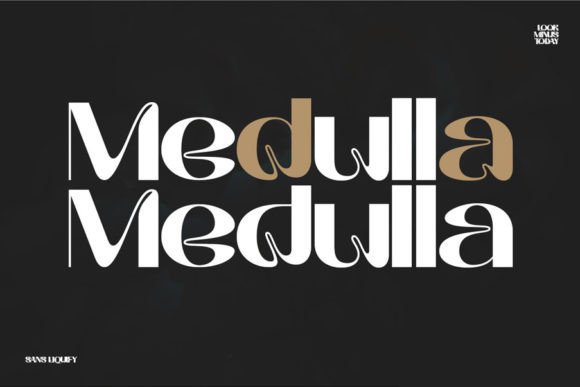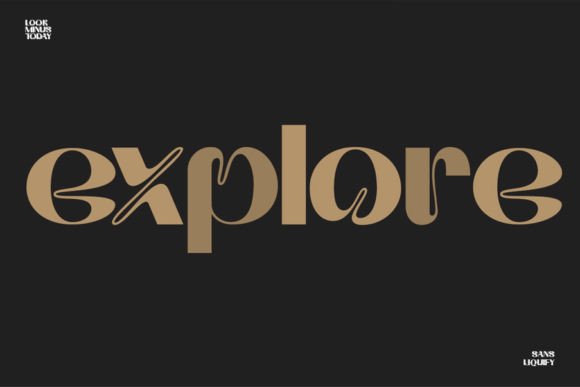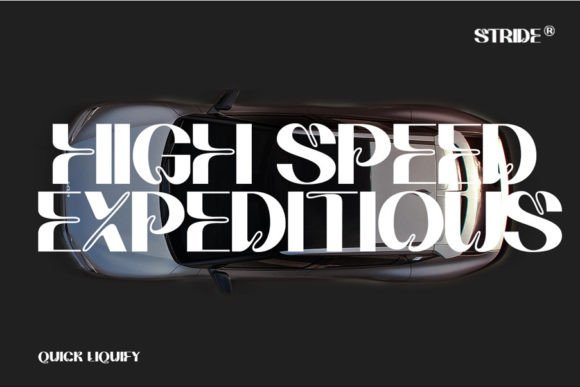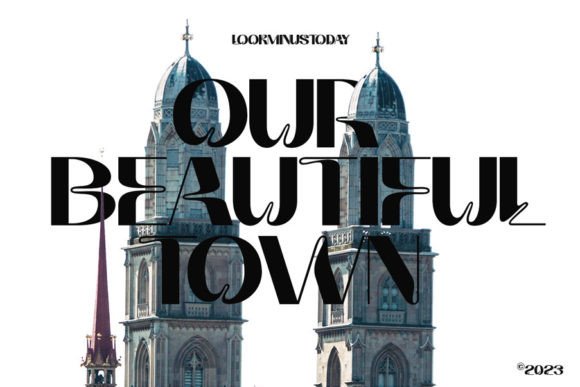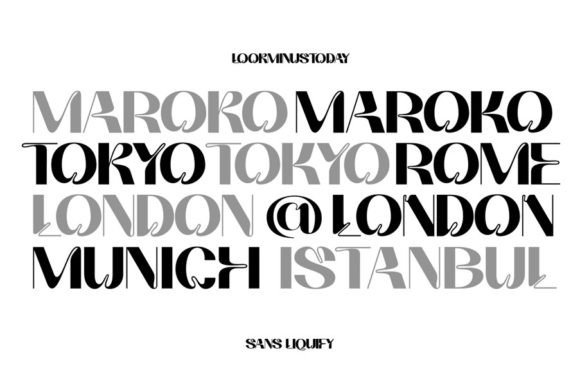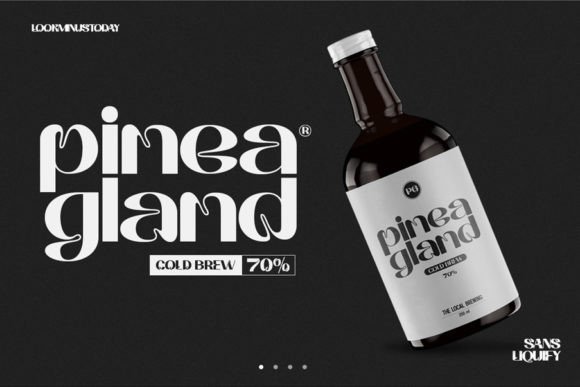
Introduction to Hypothalamus Font
Have you ever found yourself mesmerized by the flow of water, watching how it effortlessly creates intricate patterns and shapes? As designers, we’re constantly seeking inspiration from nature’s beauty to elevate our creative projects. For those seeking a design resource that captures the essence of water’s fluidity, we’re excited to introduce the Hypothalamus Font. This stunning font is perfect for a wide range of design needs, from print materials to digital media.
| 📌 Product Name | Hypothalamus Font |
| 👤 Author | LOOK MINUS TODAY |
The Hypothalamus Font boasts an elegant balance of thickness and spacing, making it an ideal choice for branding, advertising, packaging, and editorial design. Its smooth curves and refined lines evoke a sense of sophistication, while its versatility ensures it’s suitable for various creative projects. Whether you’re working on a complex branding project or a simple design task, the Hypothalamus Font is a valuable addition to your design arsenal.
Key Features of Hypothalamus Font
- Unique, modern design that adds a touch of sophistication to any project or document.
- Perfect for use in logos, branding materials, posters, and other creative projects requiring a high-quality font.
Honest Review: Hypothalamus Font
I recently had the chance to work with the Hypothalamus Font, and I’m excited to share my thoughts on this design resource. Overall, I was impressed with the quality and versatility of the font.
- High-quality design: The Hypothalamus Font features clean lines, smooth curves, and a consistent style throughout.
- Limited character set: The Hypothalamus Font has a relatively small character set, which may be a limitation for more complex creative projects.
- No bold or italic styles: The font is only available in regular weight, which may not be suitable for all design needs.
Overall, I was impressed with the Hypothalamus Font, and I would definitely consider using it for future creative projects. Its high-quality design, free download, and transparent background make it a valuable resource for designers. However, its limitations should be taken into consideration when deciding whether to use it.
Hypothalamus Font is perfect for use in a variety of creative projects, including branding, marketing materials, and social media graphics. Its modern and clean design makes it a great choice for anyone looking to create a professional and eye-catching look.